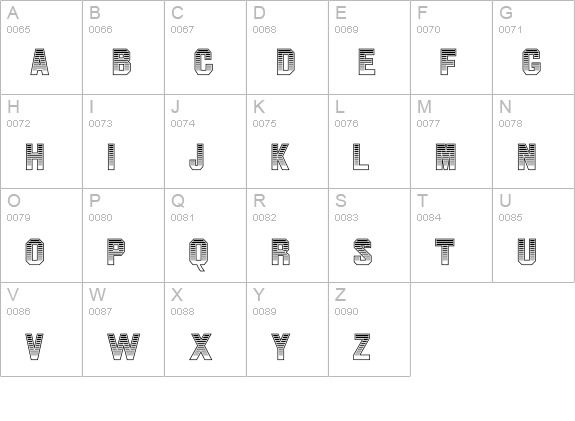
Jim Dandy2D Font Details
The Jim Dandy2D font is a playful and whimsical typeface that exudes charm and personality. With its unique 2D design, this font is sure to add a touch of fun to any project. Featuring smooth curves and bold lines, Jim Dandy2D is perfect for creating eye-catching headlines, posters, and social media graphics. Best of all, Jim Dandy2D is available for free download at FontsMarket.com. Whether you're a designer looking to add a touch of flair to your work or simply someone who appreciates a fun and creative font, Jim Dandy2D is a fantastic choice. Download it today and let your creativity shine with this delightful typeface.